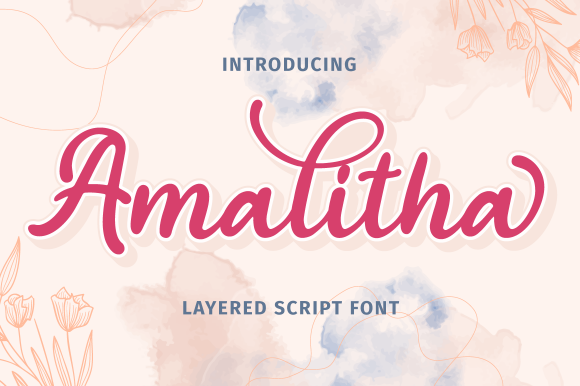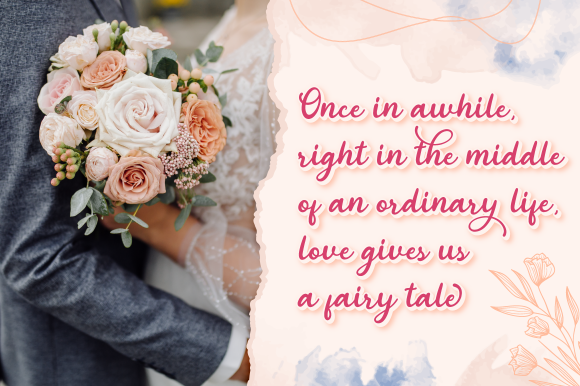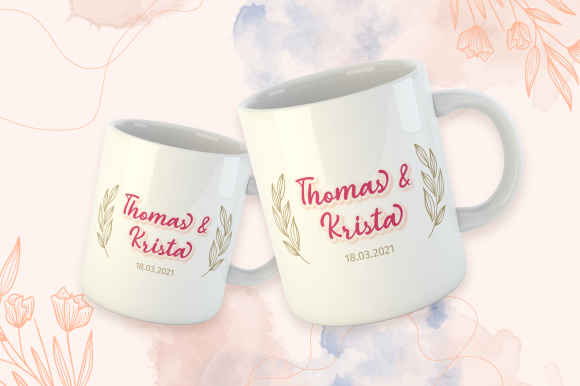
About Amalitha Font
Amalitha is an assertive handwritten font with a unique feel and a stunning impact. It will add a luxury spark to any design project that you wish to create!